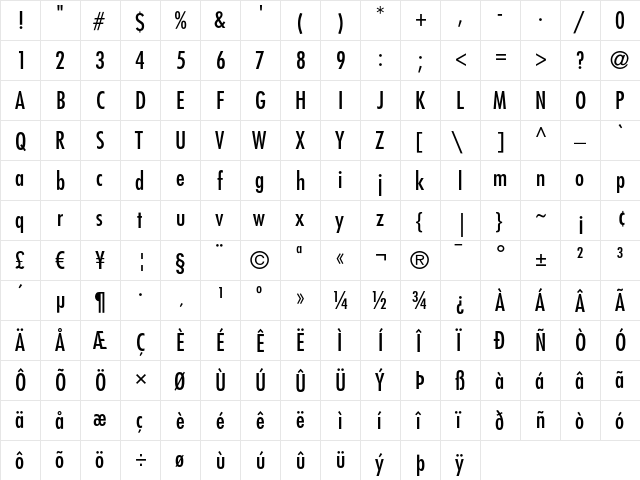
Futura LT Condensed Medium Font Preview
| Style | Condensed Medium |
Design Context for Futura LT Typeface
Futura LT channels digital-age aesthetics through its sharp, structured letterforms — ideal for brands that want to signal innovation. Its slender proportions lend an understated elegance to any composition. The condensed width makes it efficient for tight spaces without sacrificing legibility.
Pro Tip: Try Futura LT with generous letter-spacing in UI labels and navigation — the geometric forms benefit from room to breathe.